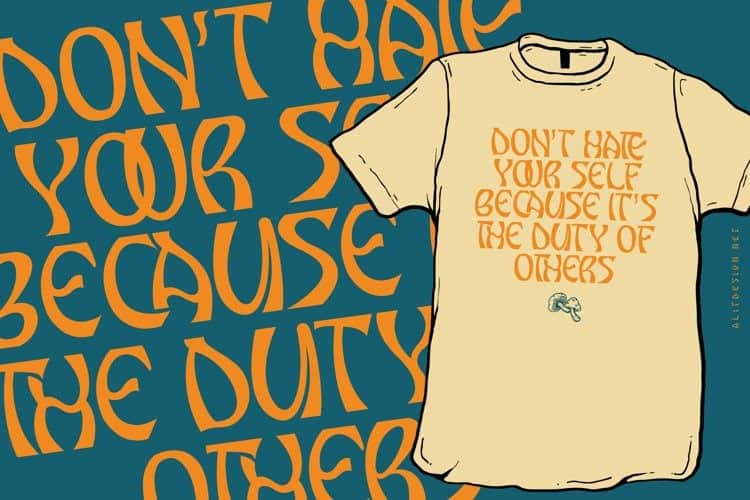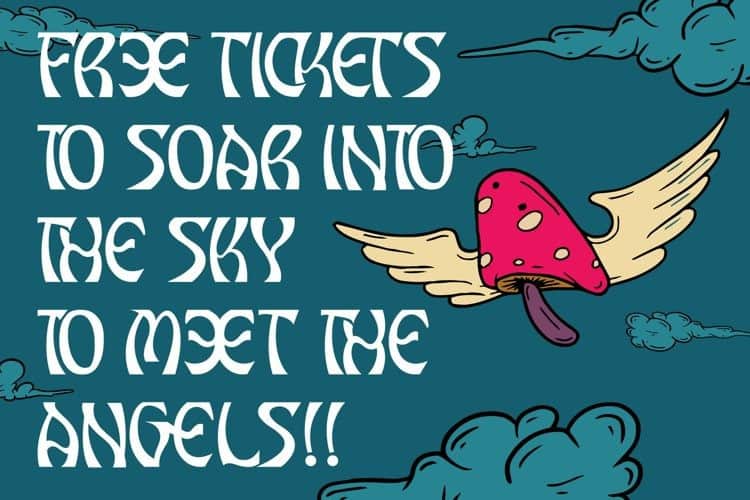
Grunge Decade Display Font
Grunge Decade Display Font is a fun hand-drawn serif font created by alit suarnegara  with lots of personality. This font is inspired by the design styles of the 80s. Taken from the design style for magic mushrooms which is again hits at that time. The style is funny, funny, not serious but has aesthetic and unique value, besides that the Gunge Decade font is very easy to remember and becomes the image of a design.
Decade Grunge is very good for being your font collection because this font is very unique and easy to apply to any media that has a design concept that is not so serious, funny and unique. Besides that, it can be used for the design of t-shirts, posters, sign boards, and social media needs.